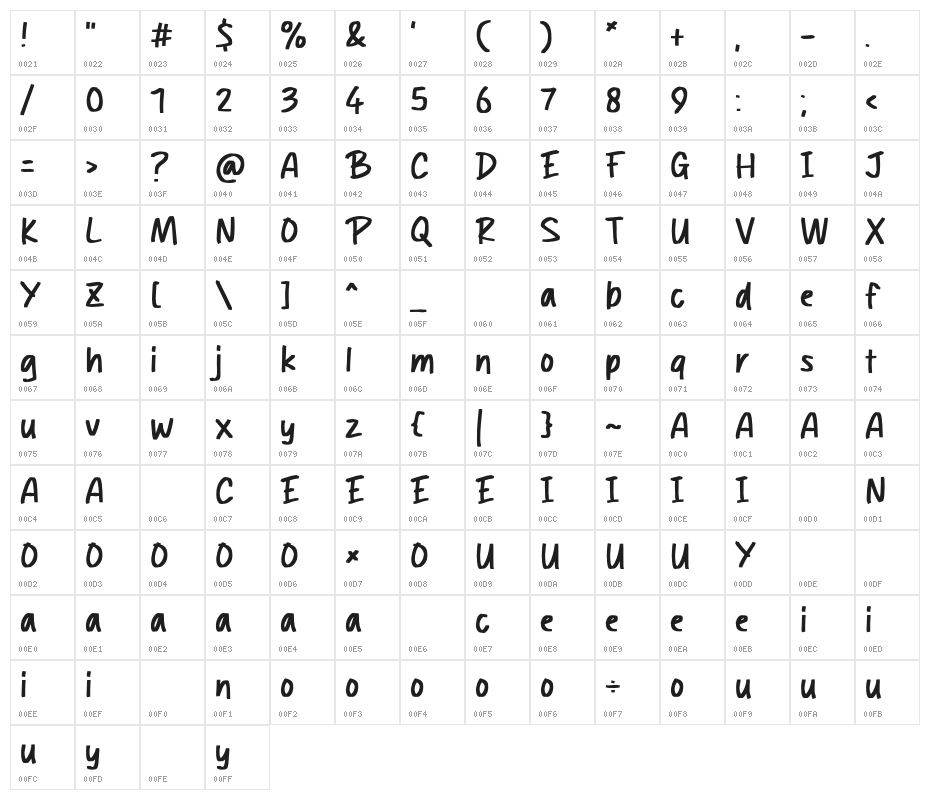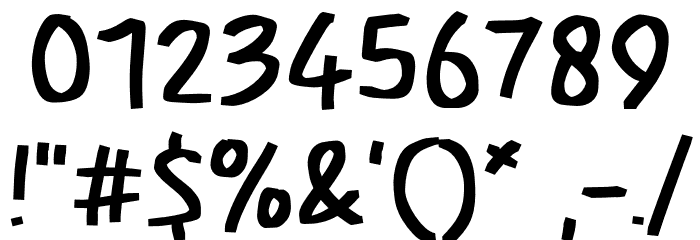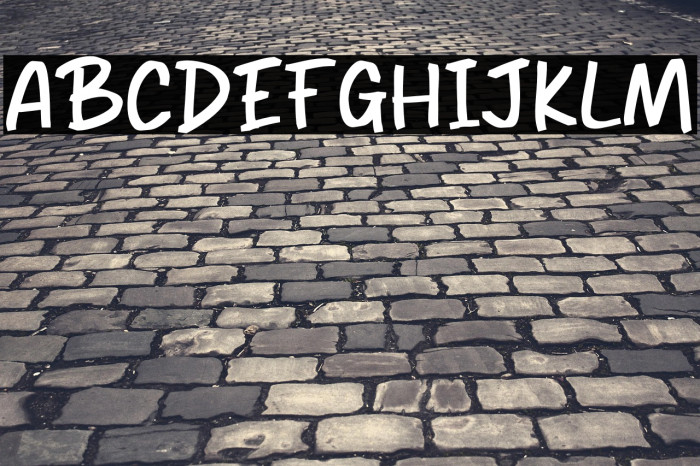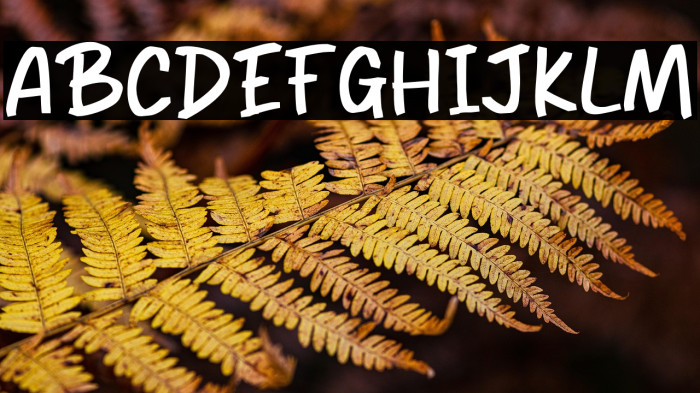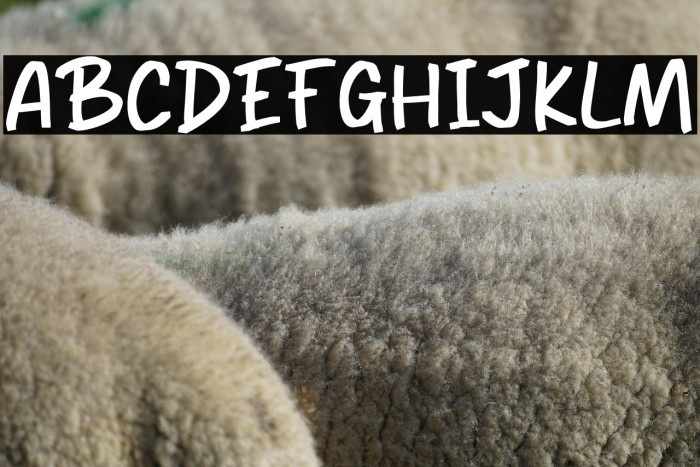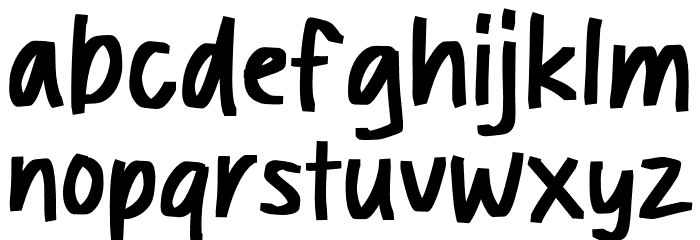
Broke Stone Font
Broke Stone Description
This font exudes a playful and informal vibe with its hand-drawn appearance. The characters are bold and slightly irregular, giving it a casual and approachable feel. The strokes are thick and consistent, contributing to a strong visual impact. The letters have a slight slant, adding to the dynamic and energetic look. The overall style is reminiscent of handwritten notes or doodles, making it perfect for projects that require a personal touch. The numbers and special characters maintain the same lively style, ensuring consistency across all text elements.